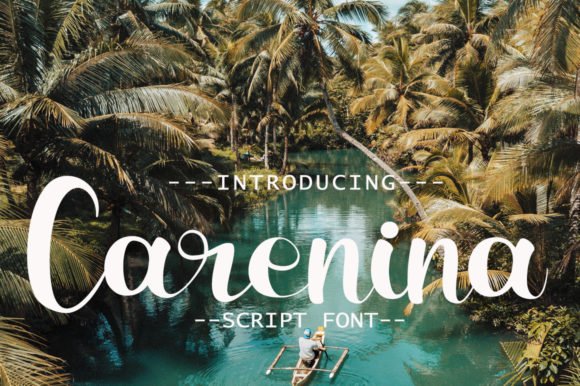
Crafting with Elegance: The Carenina Font
Have you ever sat down with a blank page, a pen, and a blank mind, only to let your creativity flow as you begin to sketch out a beautiful design? This is the moment when the magic happens, and for many designers, it’s the spark that ignites their passion for creating something truly unique. For those who love to craft with elegance and precision, we have just the right tool to elevate your designs.
Meet the Carenina Font, a stunning calligraphic script font that’s been carefully crafted by hand to bring a touch of natural elegance to your print and digital designs. With its clean and modern lettering, this versatile font is perfect for creating logos, invitations, wedding designs, labels, and so much more. As a PUA encoded font, accessing all the glyphs and swashes is a breeze, giving you endless possibilities to express your creativity.
- Unique Characteristics: This font features a unique blend of elegance and sophistication, making it ideal for luxury branding, high-end packaging, and premium publishing
Carenina Font Review
I recently had the chance to work with Carenina Font, and I must say it’s a unique and intriguing typeface. ✨ The first thing that caught my attention was its elegant and refined aesthetic, perfect for high-end branding and design projects.
Here are some of the things that work well in Carenina Font:
- ✨ Its refined and sophisticated look, making it perfect for luxury brands
- ✨ The font’s versatility in terms of font sizes and weights, allowing for a wide range of design applications
- ✨ The elegant lines and curves of the font, creating a sense of sophistication and refinement
- ⚠️ The font may be too ornate for some design projects, potentially overpowering the content
- ⚠️ The font’s complexity may make it difficult to use in certain digital applications, such as mobile apps or websites with limited font support
Overall, I would say that Carenina Font is a solid choice for designers looking to add a touch of elegance and sophistication to their projects. However, it may not be the best fit for every design project, and its limitations should be carefully considered.
For optimal results, use the Carenina Font for headings and titles, and pair it with a clean and simple font for body text.
Use the Carenina Font for creative and artistic purposes, such as typography-based designs or graphics.
Use the Carenina Font for presentations, reports, and documents that require a touch of elegance and sophistication.
The Carenina Font is ideal for:
- Typography-based art and graphics.
- Presentations and reports that require a touch of elegance.
Alternatives to Carenina Font
Lato is a sans-serif typeface designed by Łukasz Dziedzic. It’s a modern and clean font perfect for body text, headings, and titles. Lato is ideal for use in digital products, such as websites, mobile apps, and software. It’s highly legible and works well in various screen resolutions.
Lato is a great alternative to Carenina Font as it offers a similar modern and clean look, but with a more neutral and versatile design. While Carenina Font has a more distinctive and ornate feel, Lato is more subtle and adaptable to different design contexts.
Montserrat is a sans-serif typeface designed by Julieta Ulanovsky. It’s a geometric and urban font inspired by the city of Buenos Aires. Montserrat is perfect for use in headlines, titles, and short paragraphs where you need to convey a sense of energy and dynamism. It’s ideal for use in branding, advertising, and editorial design.
Montserrat is a great alternative to Carenina Font as it offers a similar sense of modernity and urbanity, but with a more geometric and structured design. While Carenina Font has a more organic and hand-drawn feel, Montserrat is more precise and grid-based.